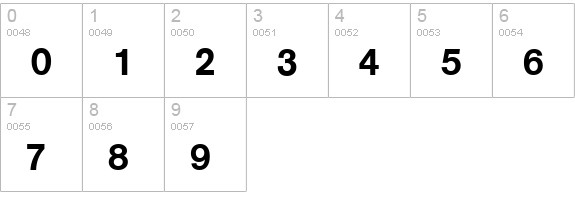
Arezzo-Demi Font Details
Arezzo-Demi is a sub-bold, structured variant in the Arezzo typeface family \xE2\x80\x94 well suited to sub-headlines and emphasised passages.
Introducing Arezzo-Demi font, a modern and stylish typeface that exudes elegance and sophistication. With its bold and eye-catching design, Arezzo-Demi is perfect for creating impactful headers, titles, and branding materials. This versatile font strikes the perfect balance between professionalism and creativity, making it ideal for a wide range of design projects. What sets Arezzo-Demi apart is not only its sleek appearance but also its accessibility. This font is available for free download at FontsMarket.com, allowing designers and creators to easily incorporate it into their work without any cost. Whether you're working on a logo, website design, or print materials, Arezzo-Demi is sure to elevate your project with its refined aesthetic and timeless appeal. Download Arezzo-Demi today and enhance your designs with this exceptional font that combines style, versatility, and accessibility in one stunning package.